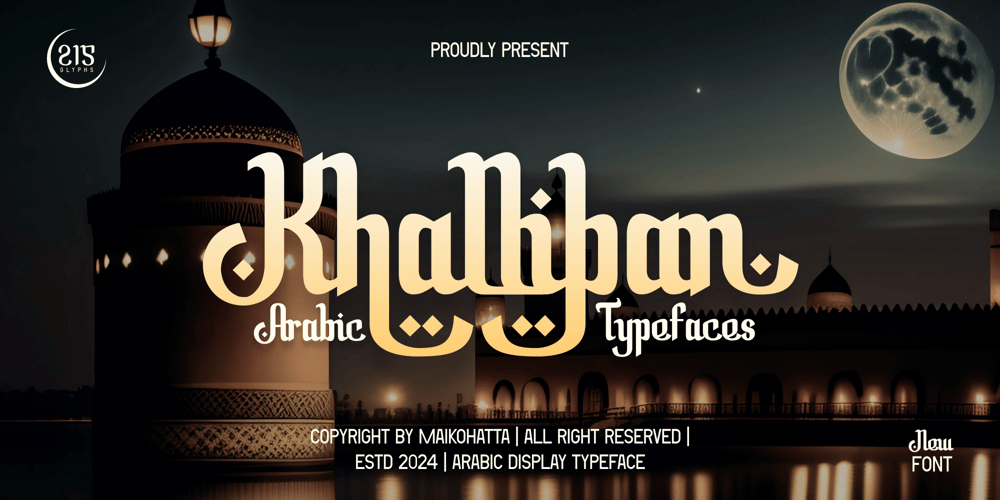
Khalliban
Khalliban font
Khalliban Font Family was designed by Gilang Ternadho and published by Maikohatta. Khalliban contains 1 styles and family package options. Introducing our new product Khalliban – Arabic TypefaceKhalliban Modern Font is a bold and authentic display font. The font is suitable for any branding project like logo, Template Design, esport, and many more. outstanding in a wide range of contexts.